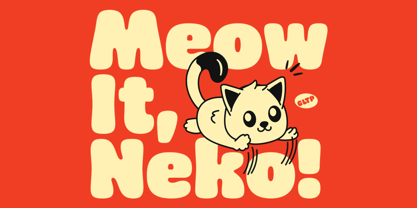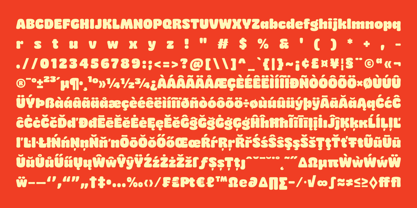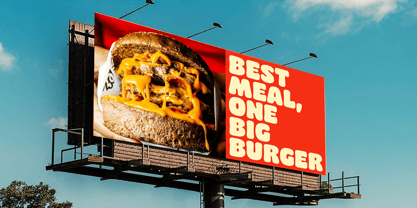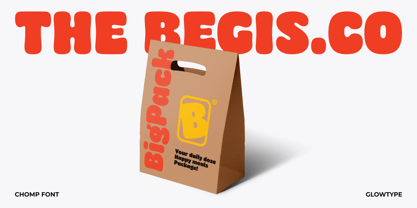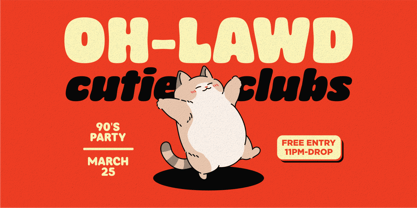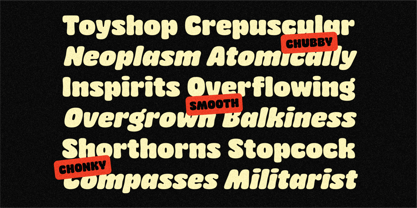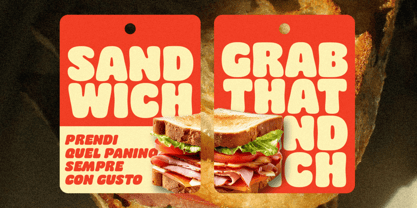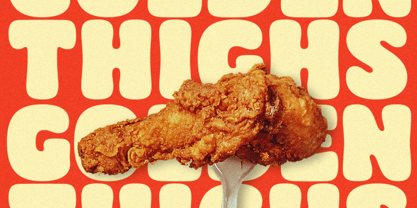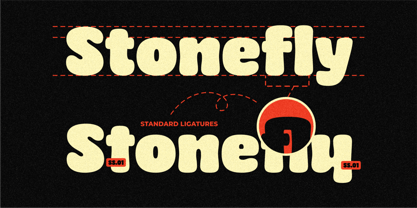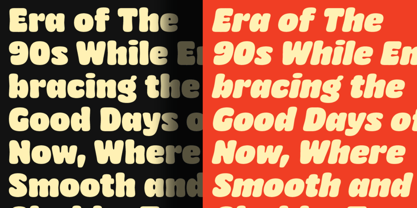
Chomp
von Glowtype
Die Schriftfamilie Chomp wurde von Fachrizal Yusuf entworfen und von Glowtype veröffentlicht. Chomp enthält 2 Stile und Familienpaketoptionen. Mehr über diese Familie
Proudly present my latest font, my first font on 2025 named Chomp!
Chomp is a chubby, chunky, and cheerful typeface that brings a sense of fun and deliciousness to any design. With its rounded corners and soft ink traps, Chomp feels approachable and vibrant, exuding an irresistible charm.
Available in two styles—Regular and Oblique—Chomp is designed primarily for display purposes but remains surprisingly effective even at smaller sizes, offering versatility for a wide range of applications.
Chomp is perfect for branding, food packaging, magazine layouts, and more, Chomp's unique character enhances any creative project with its bold, friendly appeal. Whether you're crafting playful headlines or giving your packaging an extra pop, Chomp is a typeface that commands attention while keeping the tone light and engaging.
Designer: Fachrizal Yusuf
Foundry: Glowtype